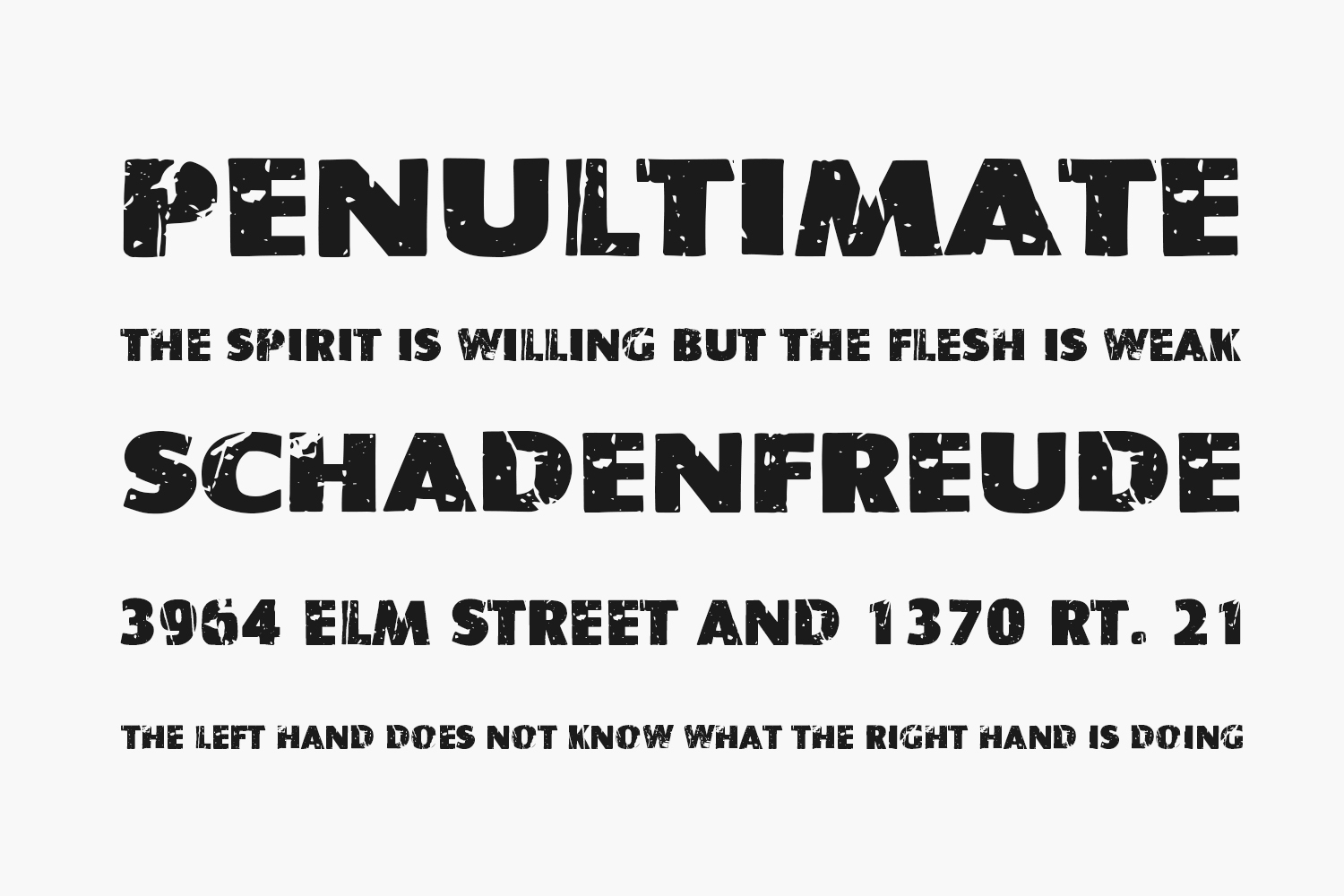
Discover Rockwill Free Font, an avant-garde rough sans serif font tailor-made for posters, logos, magazines, book covers, banners, and an array of other mediums. Embrace the uniqueness of this font to infuse your designs with charm. Its adaptability suits a vast spectrum of projects, amplifying your creative concepts and setting them apart with flair. Unleash the potential of Rockwill and watch your ideas shine. Rockwill Free Font is free for personal use only. Please purchase the full version for commercial use.